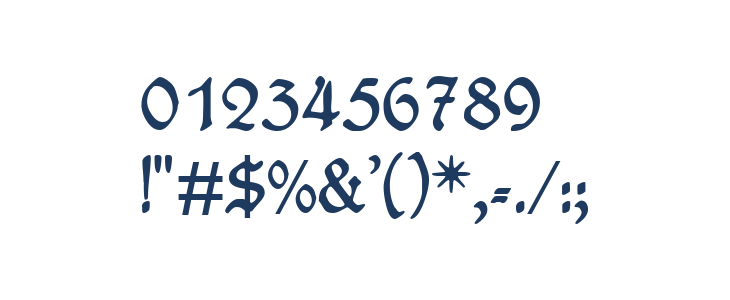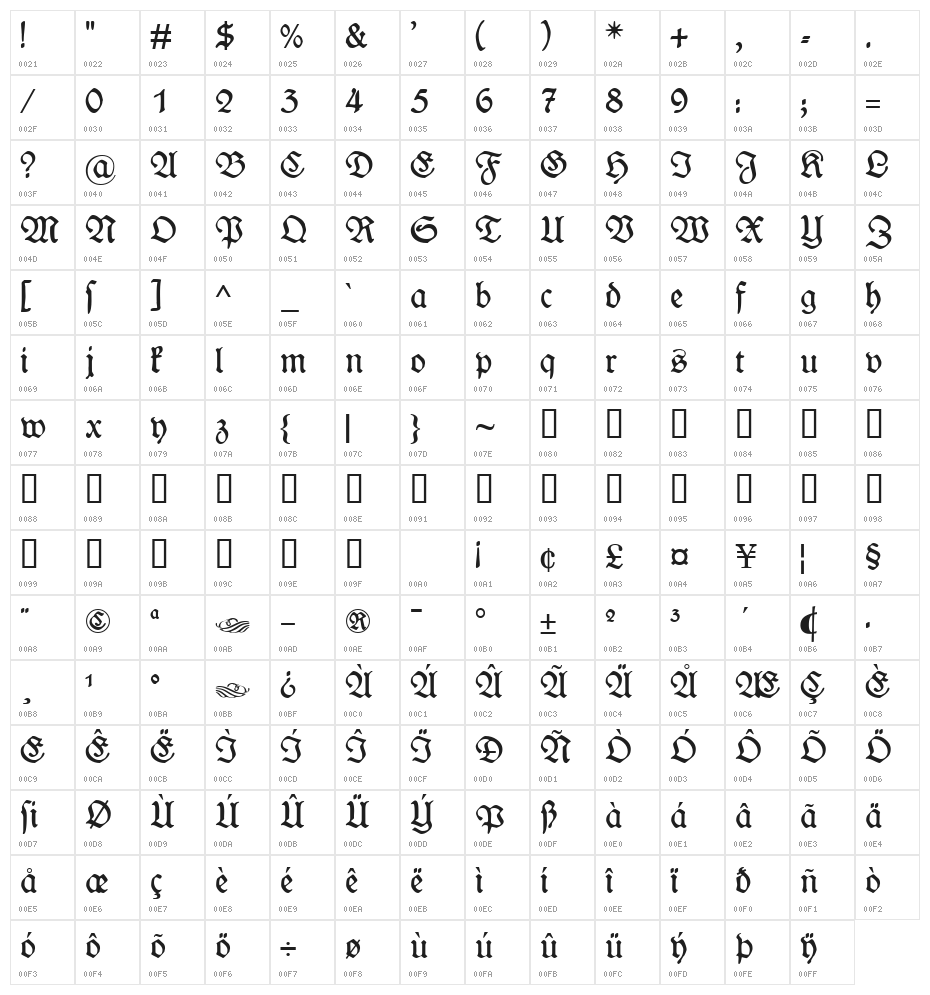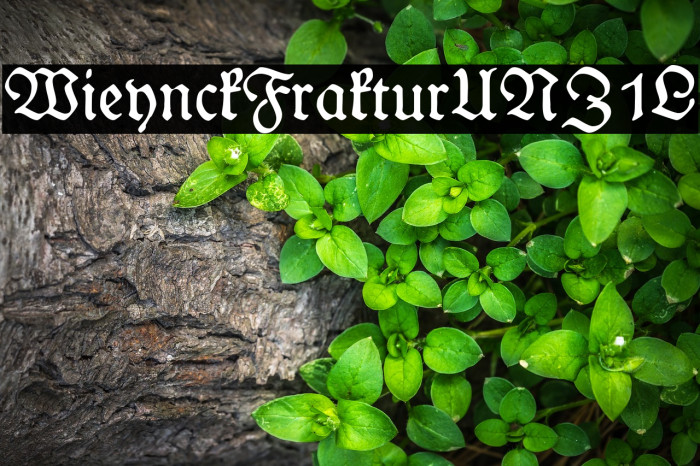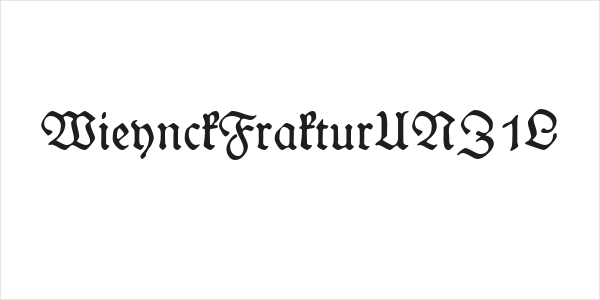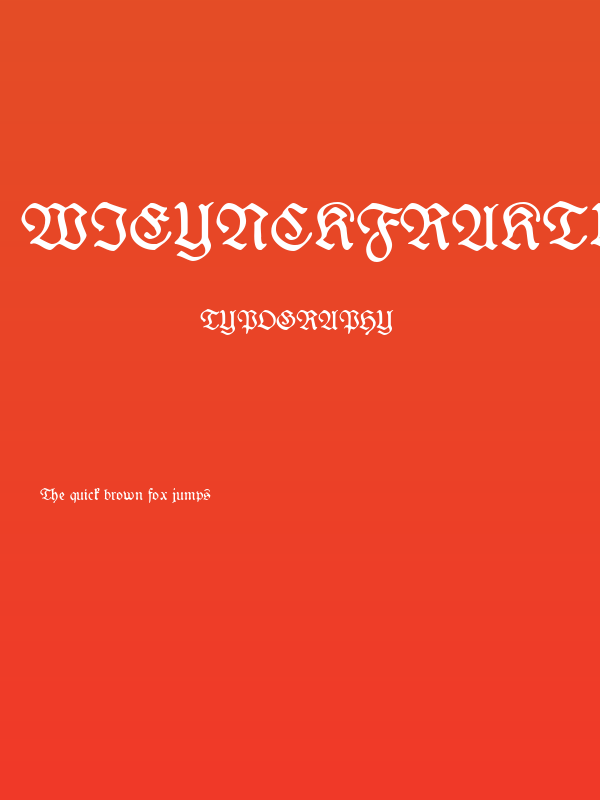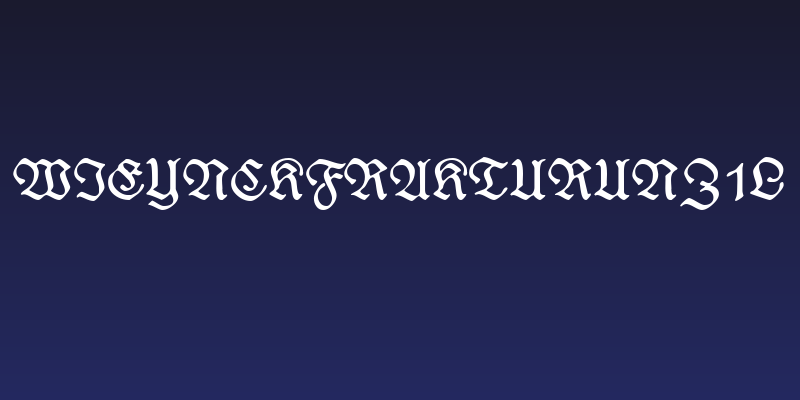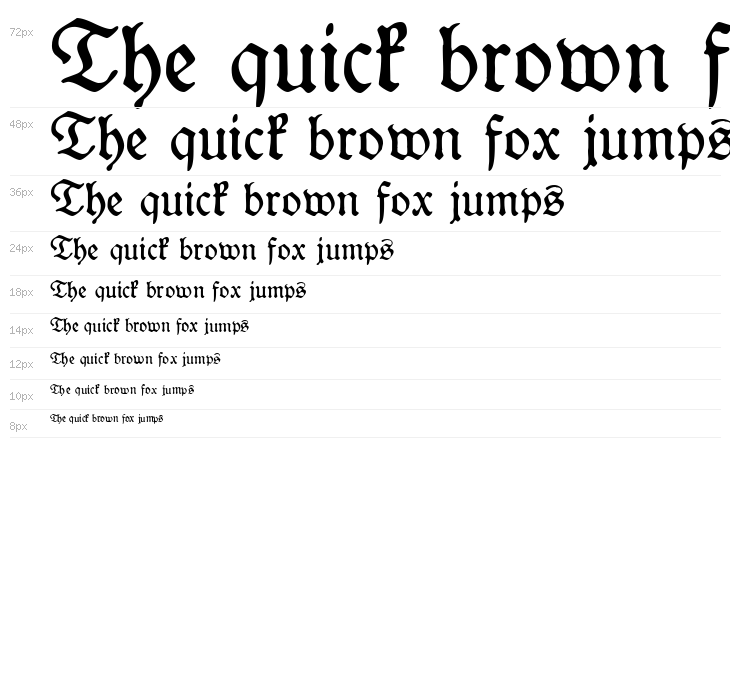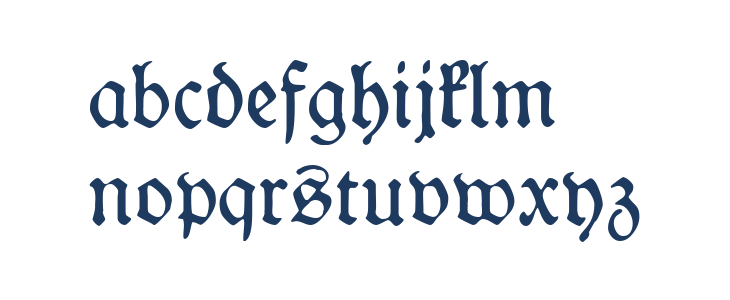
WieynckFrakturUNZ1L Font
WieynckFrakturUNZ1L Description
This font embodies the traditional elegance and intricate detailing of classic blackletter styles. Each character is meticulously crafted with sharp, angular lines and ornate flourishes, reminiscent of medieval script. The uppercase letters are bold and commanding, while the lowercase letters maintain a consistent flow with distinctive curves and loops. The numerals are equally stylized, maintaining the font's overall aesthetic. Special characters are designed with the same attention to detail, ensuring a cohesive look across all glyphs. This font is perfect for projects that require a historical or gothic touch, offering a sense of timeless sophistication.